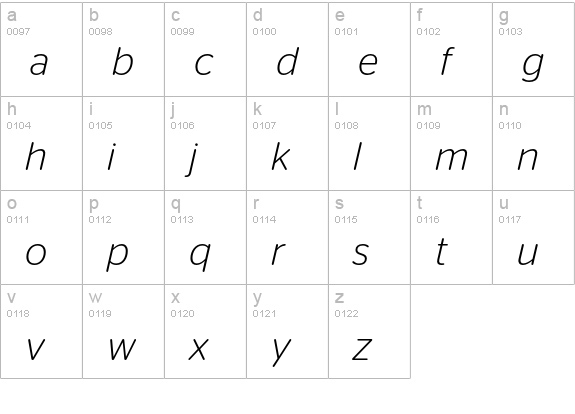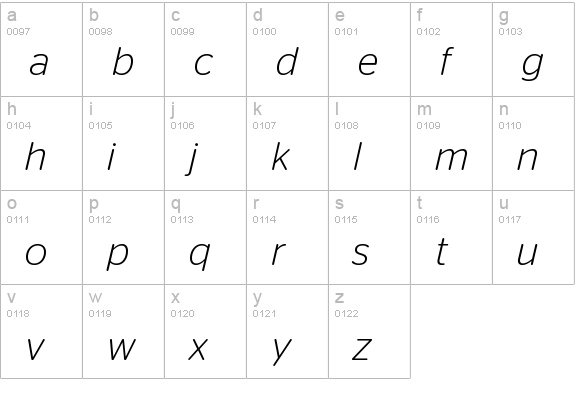
Stag Sans Round Light Italic Font Details
Stag Sans Round Light Italic is a refined, elegant, italic variant in the Stag typeface family \xE2\x80\x94 well suited to elegant body text, refined sub-headings, and luxury branding.
Stag Sans Round Light Italic is a sleek and modern typeface that exudes sophistication and elegance. Its delicate curves and slanted angles give it a unique and contemporary look that is perfect for a wide range of design projects. Whether you're creating a website, a branding package, or a printed publication, this font will add a touch of refinement to your work. The Light weight of Stag Sans Round Italic makes it versatile and easy to read, making it ideal for body text or headlines. Its rounded edges soften the overall appearance, adding a friendly and approachable vibe to your designs. The italic styling adds a touch of flair and emphasis, perfect for drawing attention to key elements in your layout. What's more, Stag Sans Round Light Italic is available for free download at FontsMarket.com. This means you can easily access and use this stylish font in your projects without any cost. Don't miss out on the opportunity to enhance your designs with this elegant typeface. Download Stag Sans Round Light Italic today and elevate your design game!